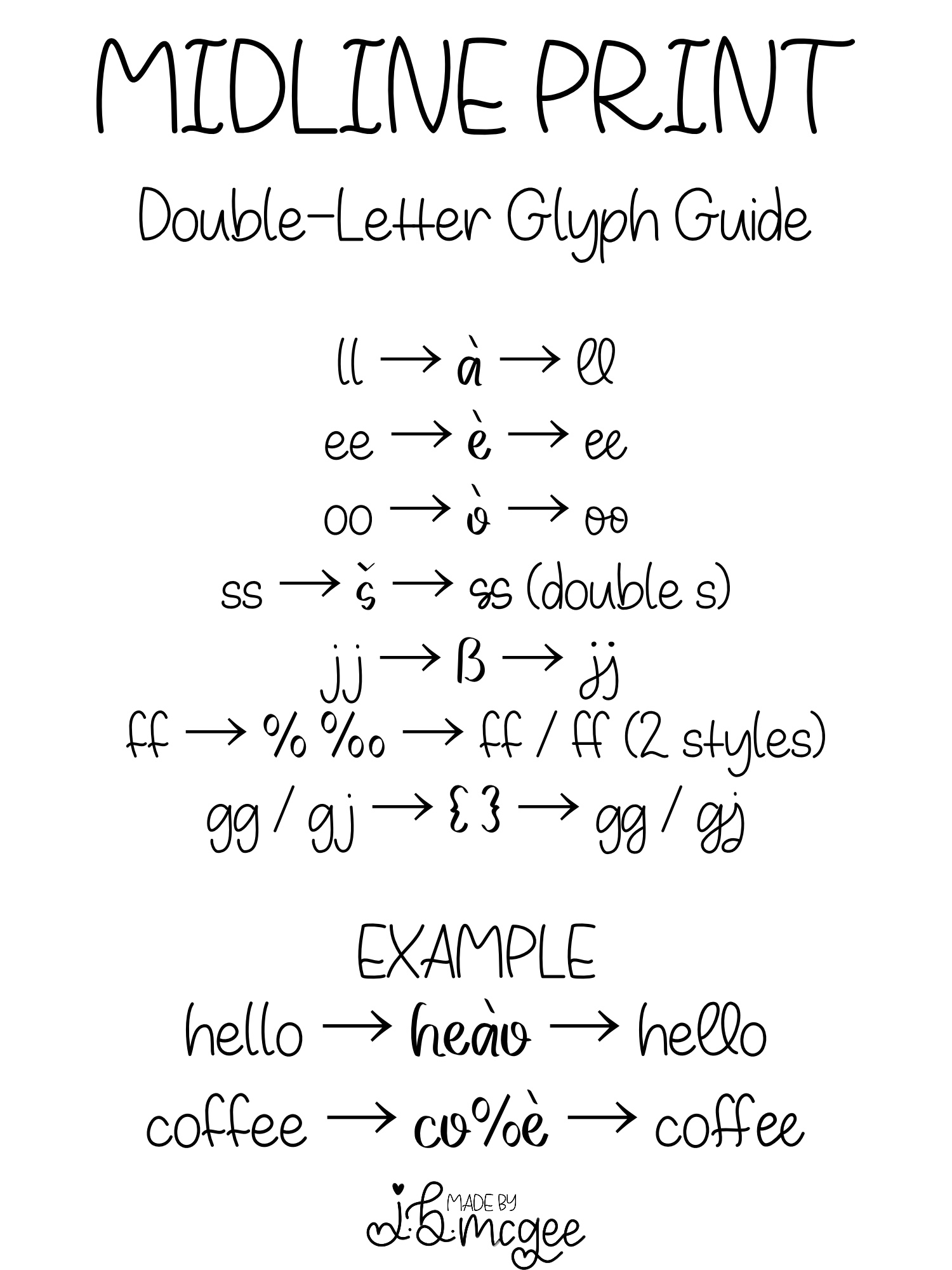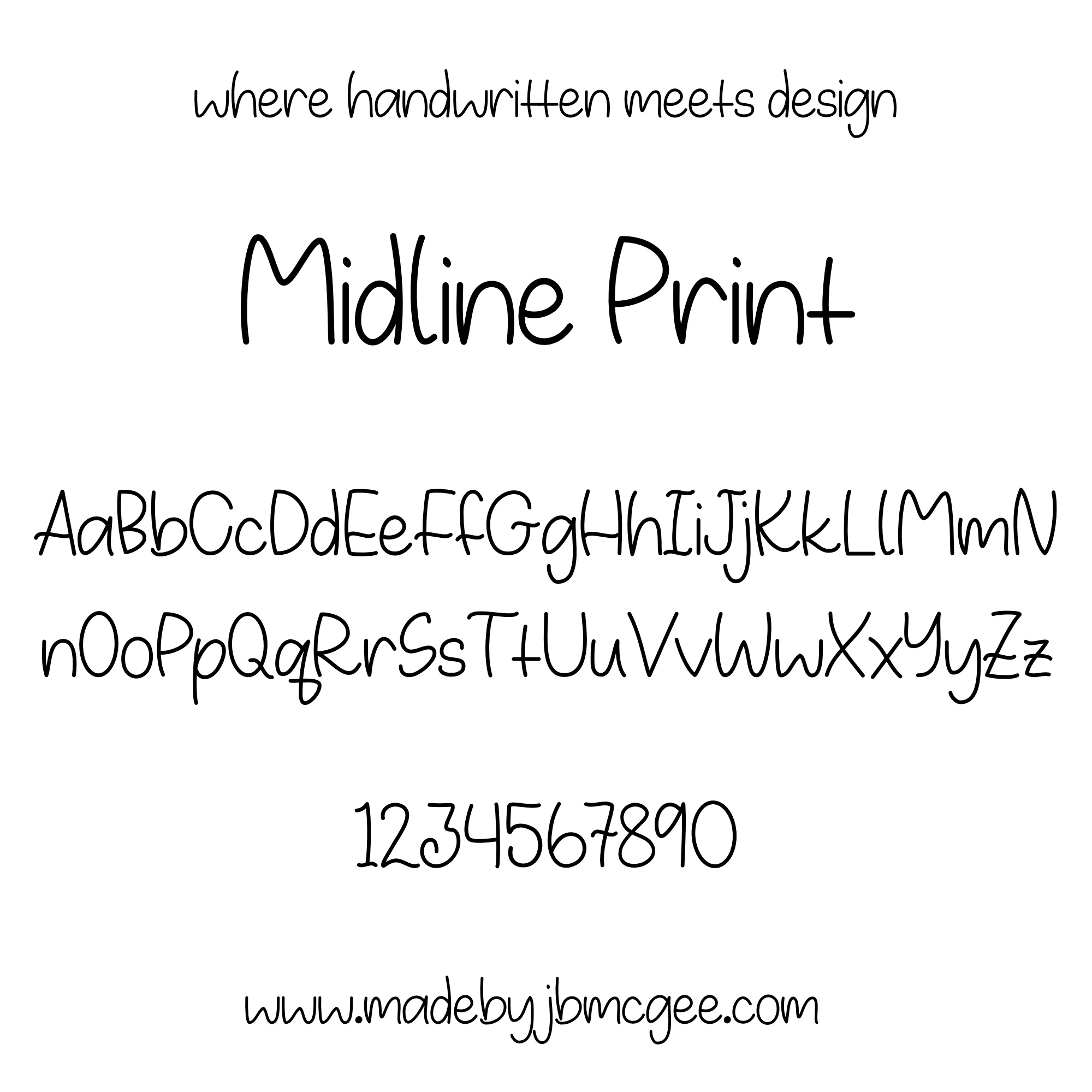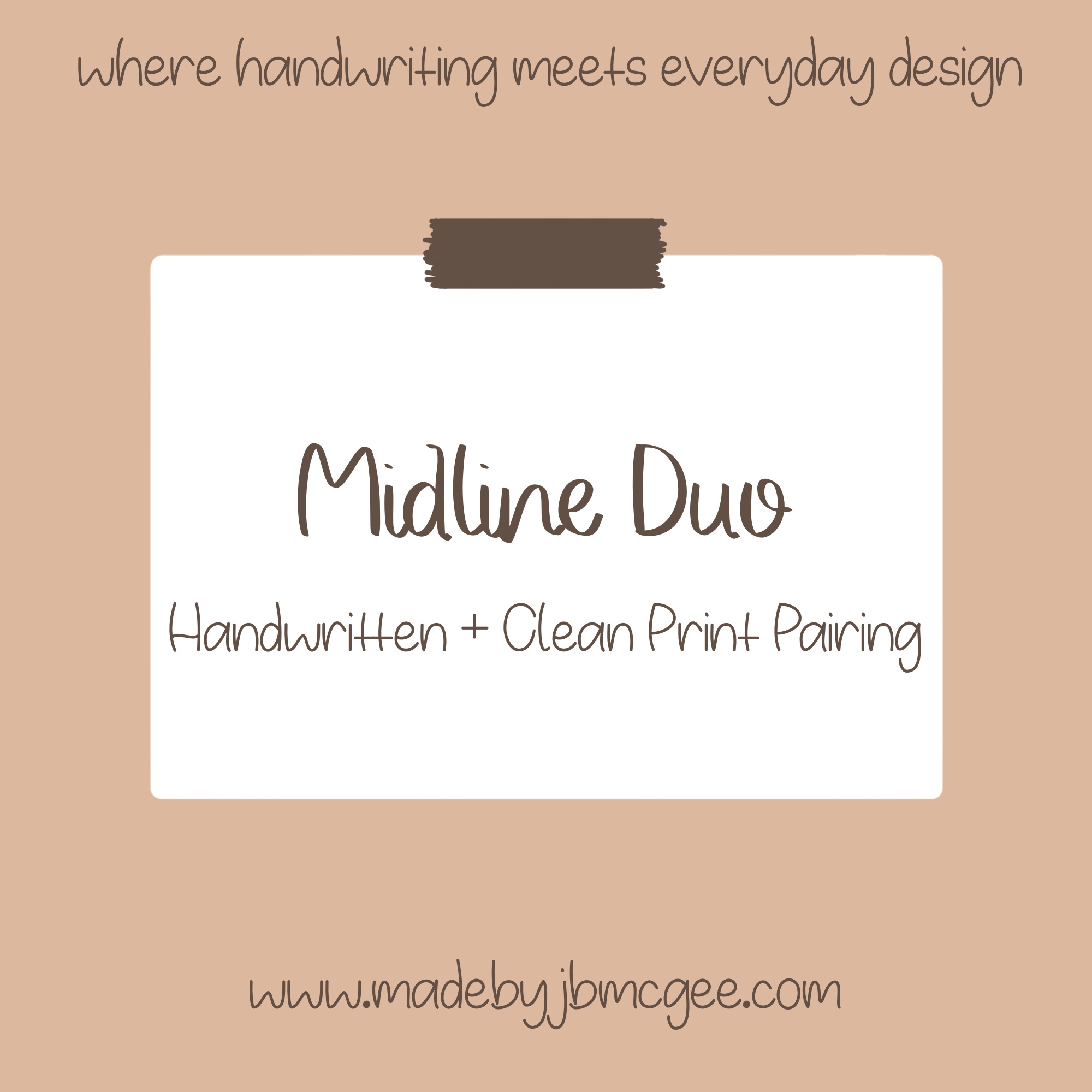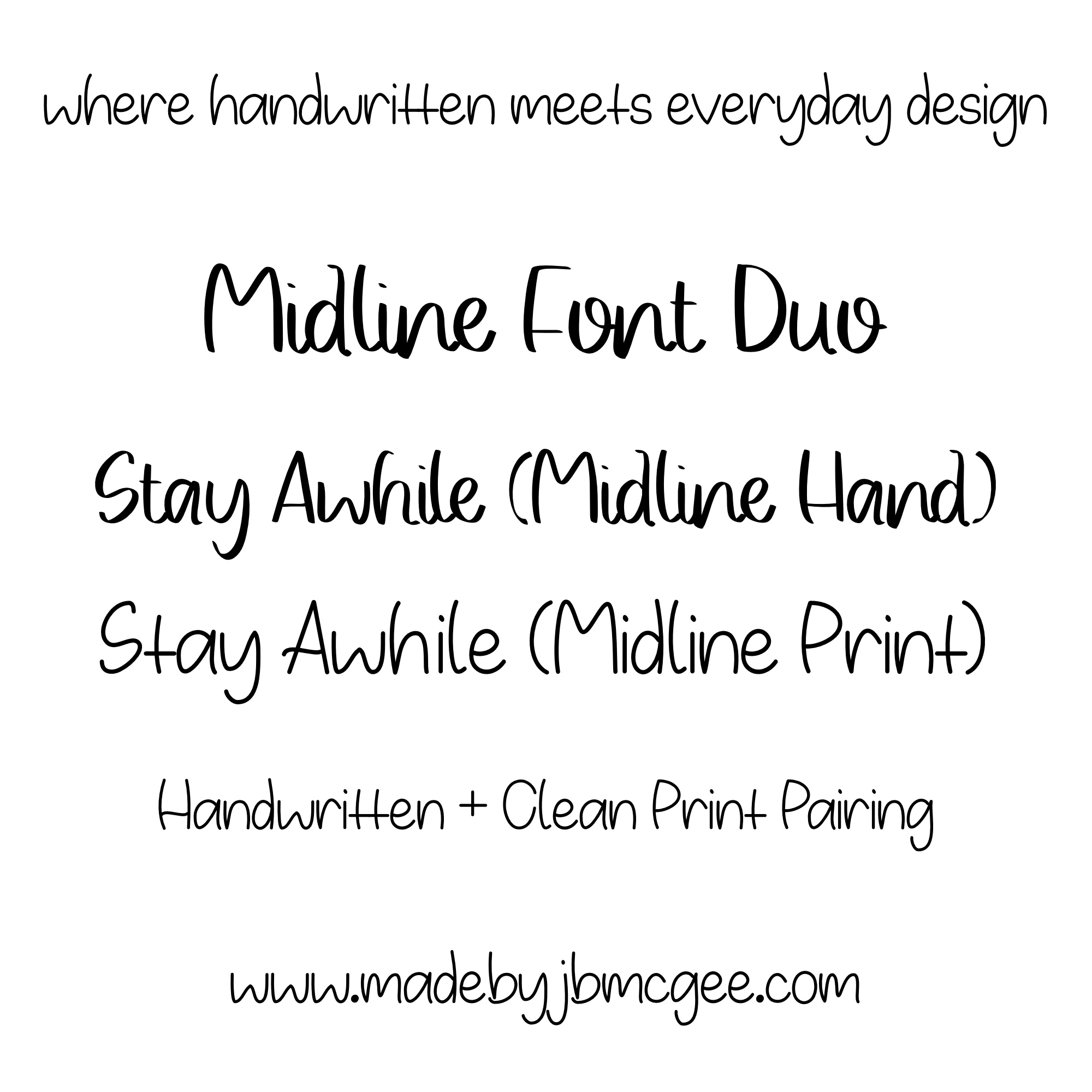
Midline Font Duo Pair - Handwritten + Clean Print Digital Font Set
A natural handwritten font paired with a clean, easy-to-read print style
The Midline Font Duo brings together two complementary fonts designed to work seamlessly across a wide range of projects.
- Midline Hand – a natural, expressive handwritten font with a relaxed, organic feel
- Midline Print – a clean, monoline handwritten font designed for clarity and everyday use
Together, they offer the perfect balance between personality and readability, making it easy to create designs that feel both personal and polished.
Why This Pair Works
Midline Hand adds warmth and character, while Midline Print keeps everything clean and structured. Use them together to create contrast, hierarchy, and visual interest without needing multiple unrelated fonts.
Double-Letter Glyph Support (Midline Print)
Midline Print includes a built-in double-letter glyph system that helps improve repeated letter combinations without requiring advanced font features.
Simply type specific characters to create smoother double letters, such as:
- “ll”, “ee”, “ff”, “ss”, “jj”, and “gg/gj”
Features
- Two complementary handwritten styles
- Clean + expressive pairing
- Double-letter glyph system in Midline Print
- Designed for ease of use across platforms
Note
Both fonts are non-connecting and easy to use in a variety of design programs, including those that do not support advanced typography features.